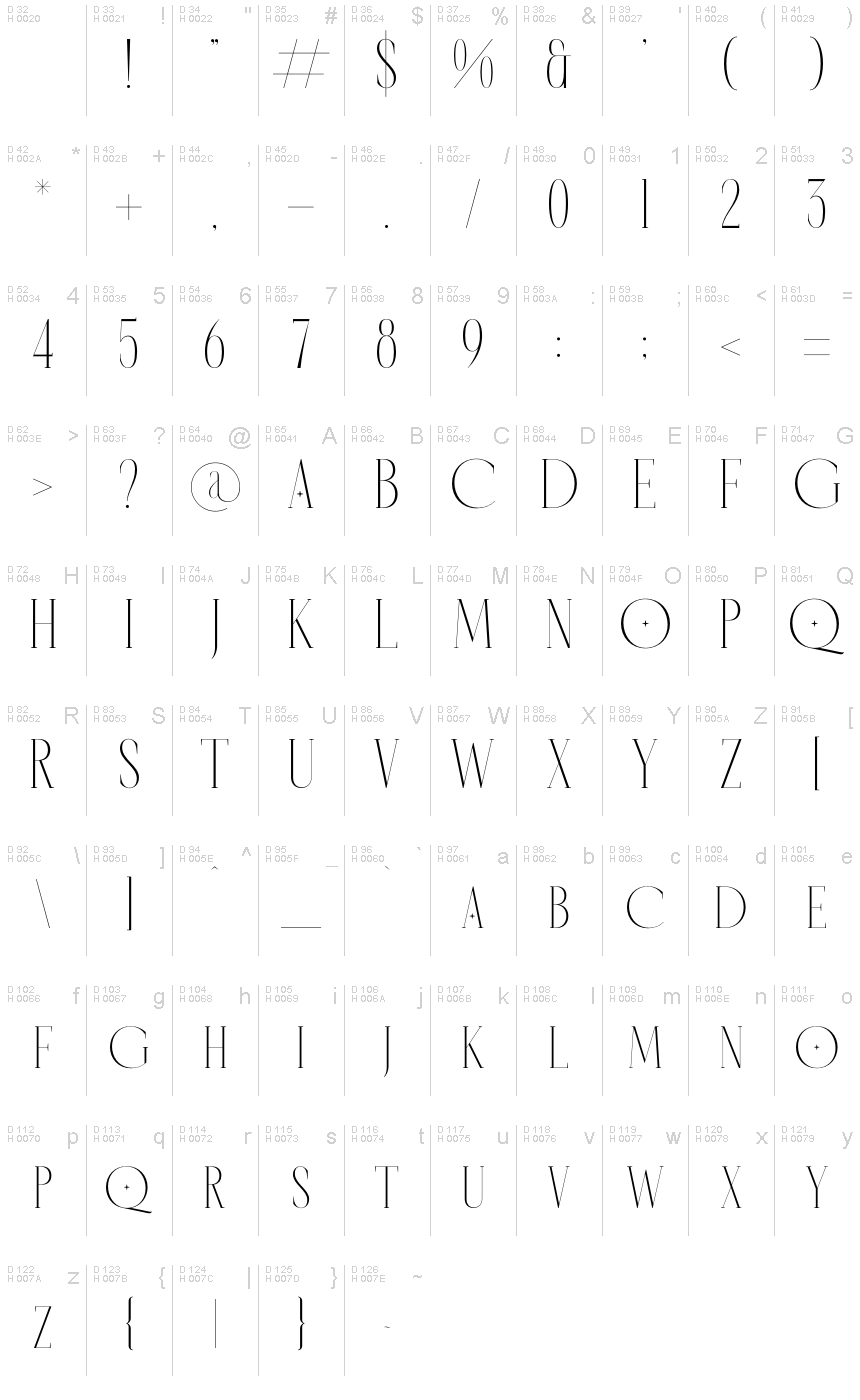
Horence
Horence font, designed by Storytype Studio, captivates with its elegant serif style that embodies sophistication. Its light form adds an airy quality, making it an inviting choice for both print and digital mediums. The condensed structure enhances its sleekness, allowing for striking visual impact while maintaining readability.
This font’s refined aesthetics make it ideal for a variety of applications, from upscale branding and editorial layouts to invitations and minimalist designs. Whether used in headlines or body text, Horence brings a touch of grace and modernity that effortlessly elevates any project, ensuring a memorable presence across diverse design contexts.